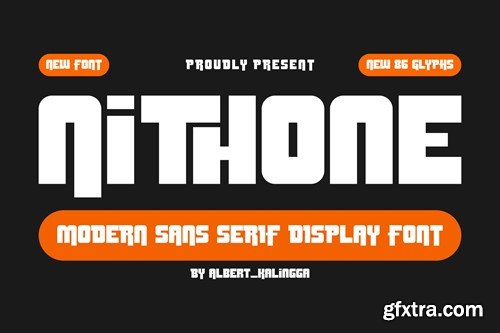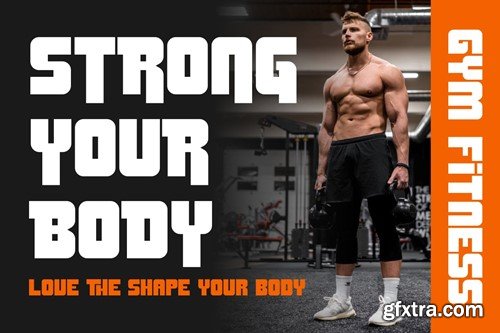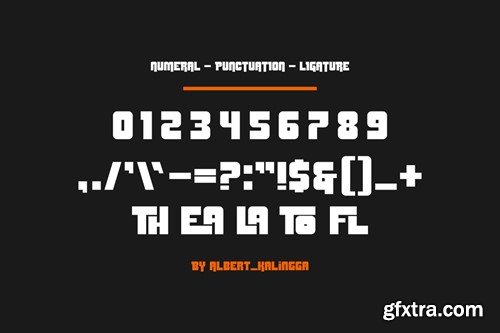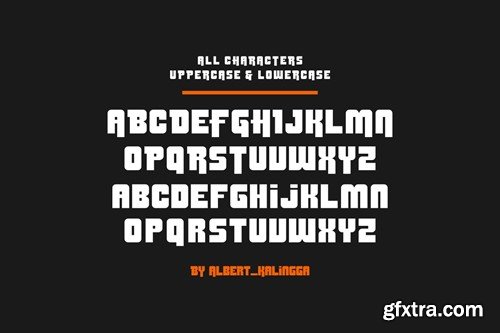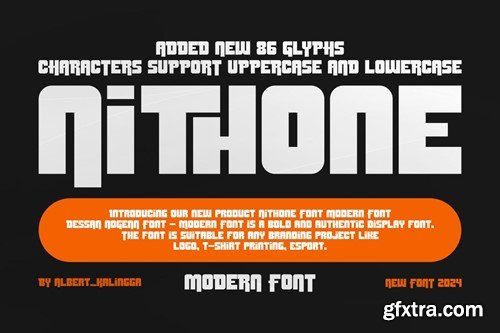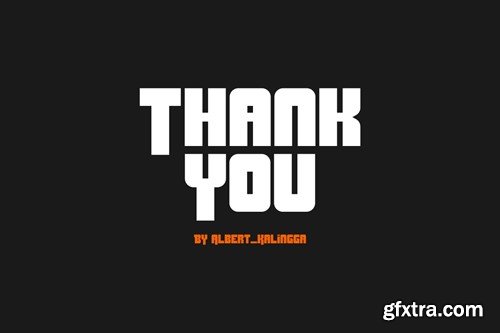
Nithone Font
Introducing our new product Nithone Font - Modern Font is a bold and authentic display font. The font is suitable for any branding project like logo, esport, and many more. outstanding in a wide range of contexts. availlable